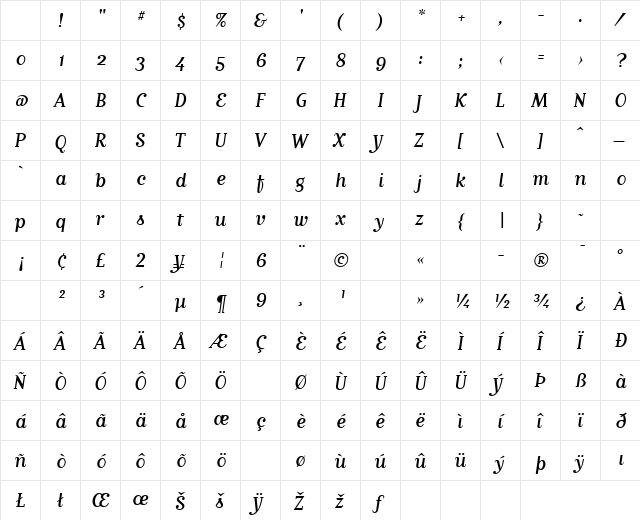
MatrixScriptRegularOldstyle Regular Free Font
MatrixScriptRegularOldstyle Regular
Design Context for MatrixScriptRegularOldstyle
MatrixScriptRegularOldstyle flows with the natural rhythm of handwritten lettering, making it ideal for designs that call for warmth and personal expression.